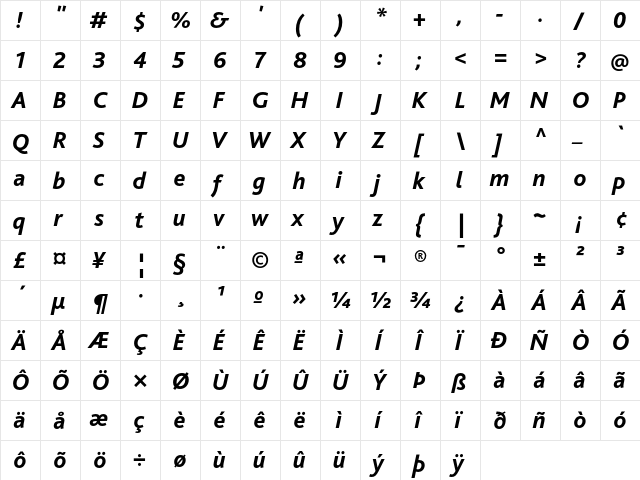
Bliss Pro ExtraBold Italic
Design Context for Bliss Pro Typeface
Bliss Pro is a composed and adaptable typeface that performs quietly and consistently across a wide range of design contexts. Its italic angle brings a sense of urgency and motion to the letterforms. Its bold stroke weight gives it real presence on the page.
Pro Tip: Try Bliss Pro for annotation and caption copy alongside an upright companion — the contrast in angle creates a dynamic but ordered typographic system.